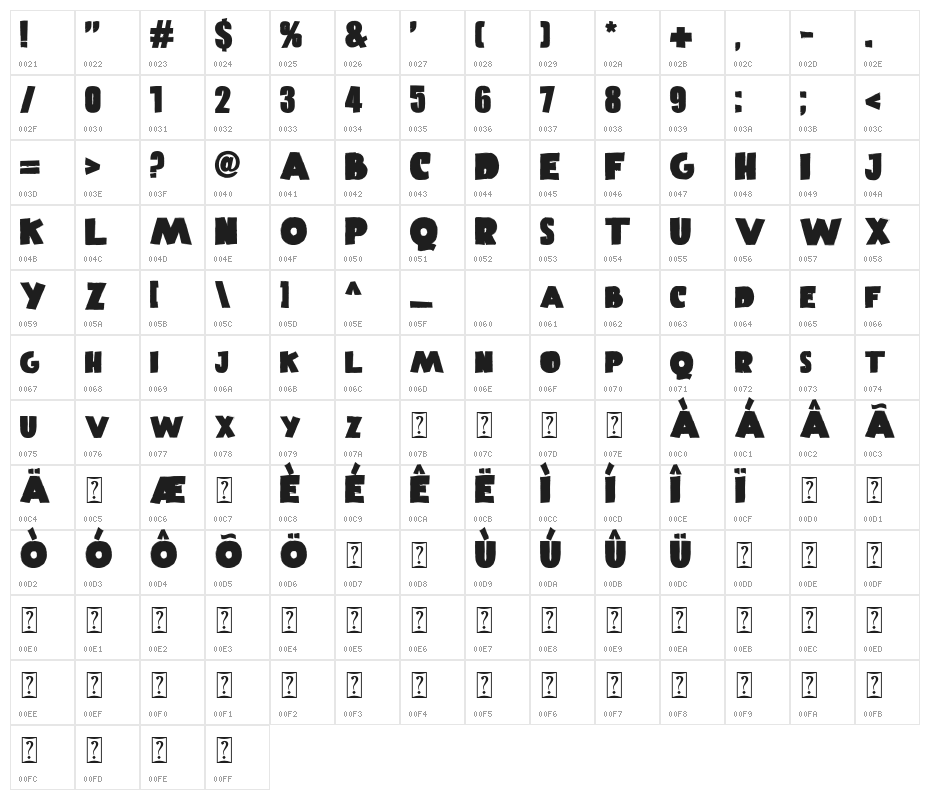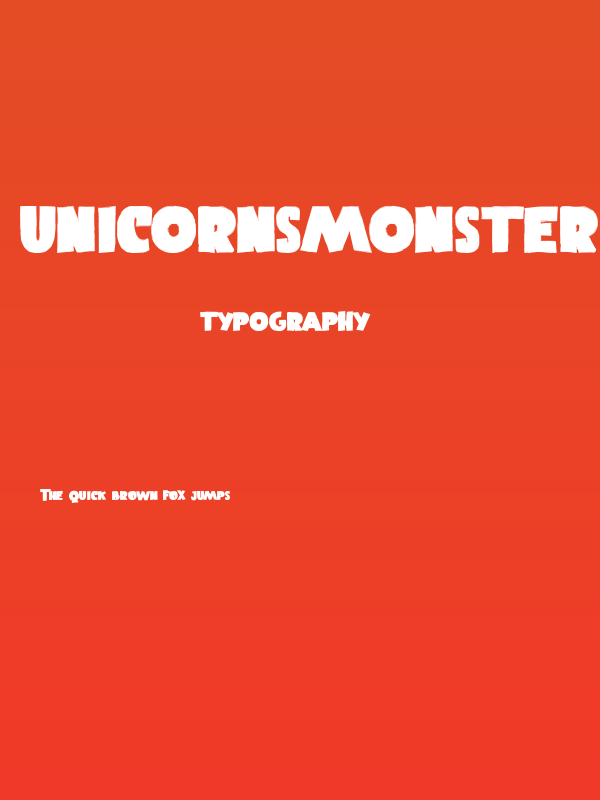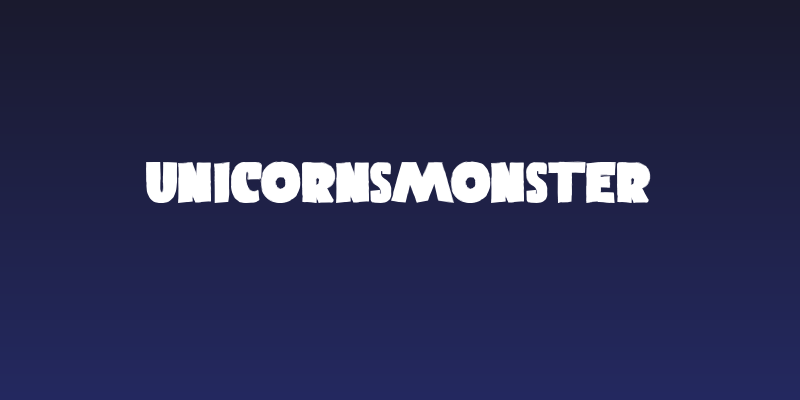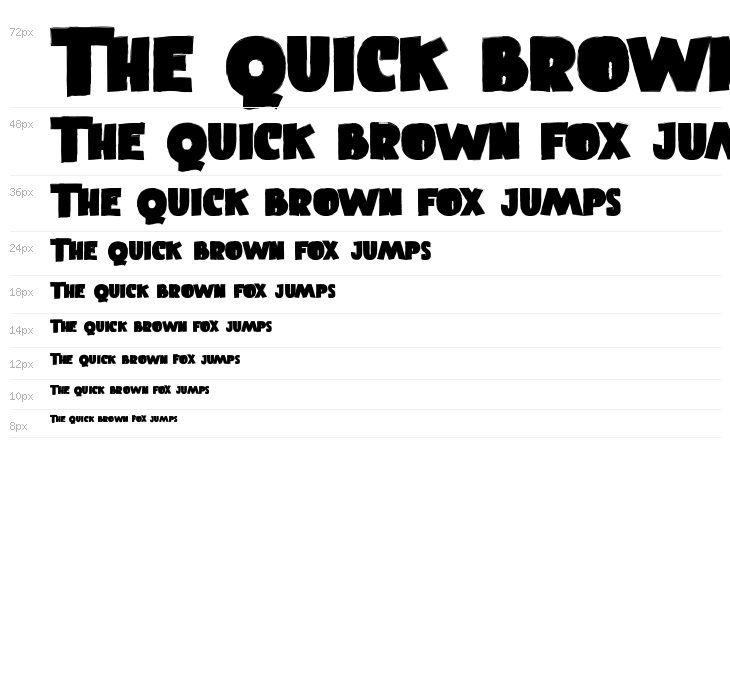
UnicornsMonster Font
UnicornsMonster Description
This font features a bold and playful design with a distinctly hand-drawn aesthetic. The characters are thick and chunky, with uneven edges that give a sense of movement and energy. The uppercase letters are particularly striking, with a strong presence that commands attention. The lowercase letters maintain the same boldness, ensuring consistency across the text. Numbers and special characters are equally robust, making them suitable for a variety of uses. The overall style is whimsical and fun, perfect for projects that require a touch of creativity and flair.
| Proposed Projects | Ideal for children's book covers, playful branding, event posters, and creative social media graphics. |